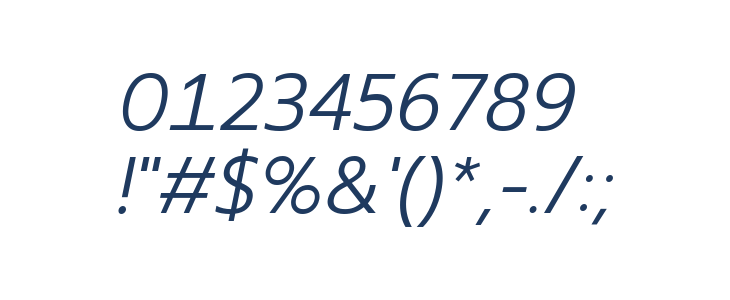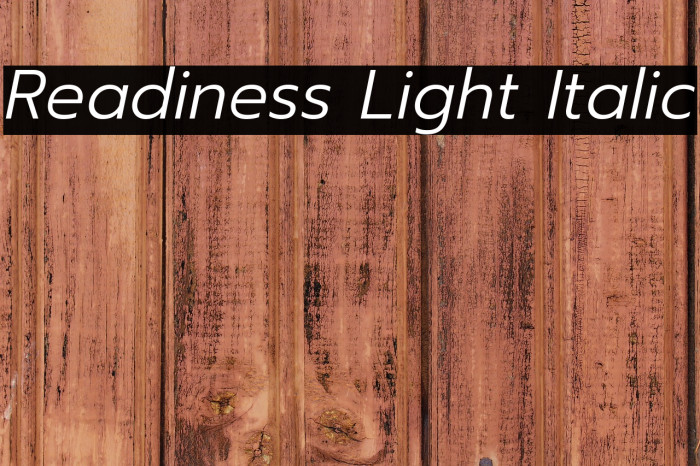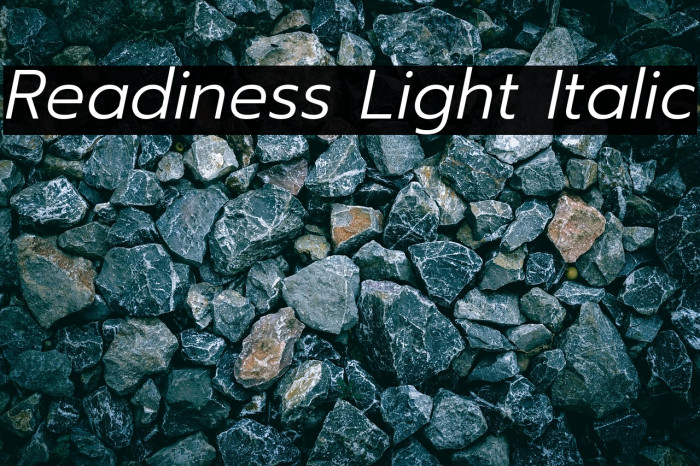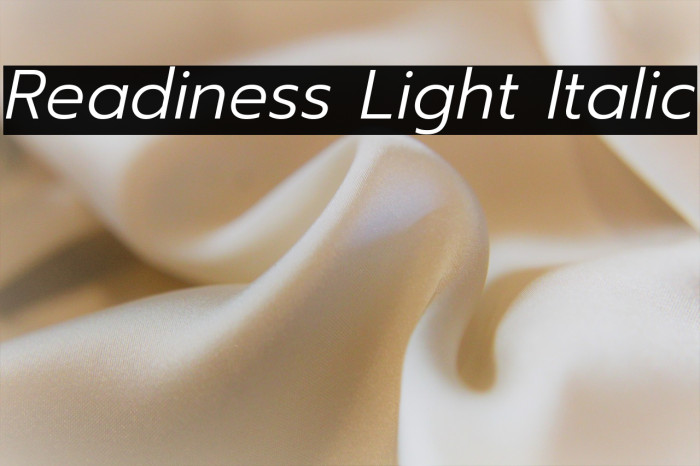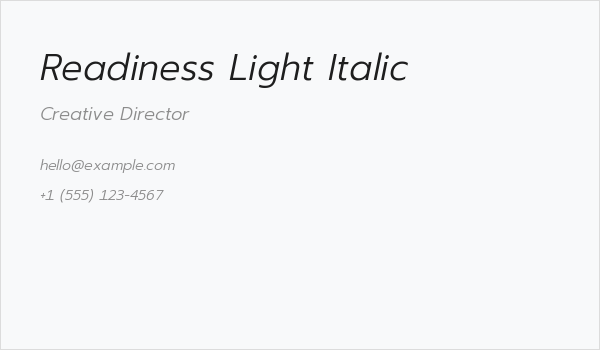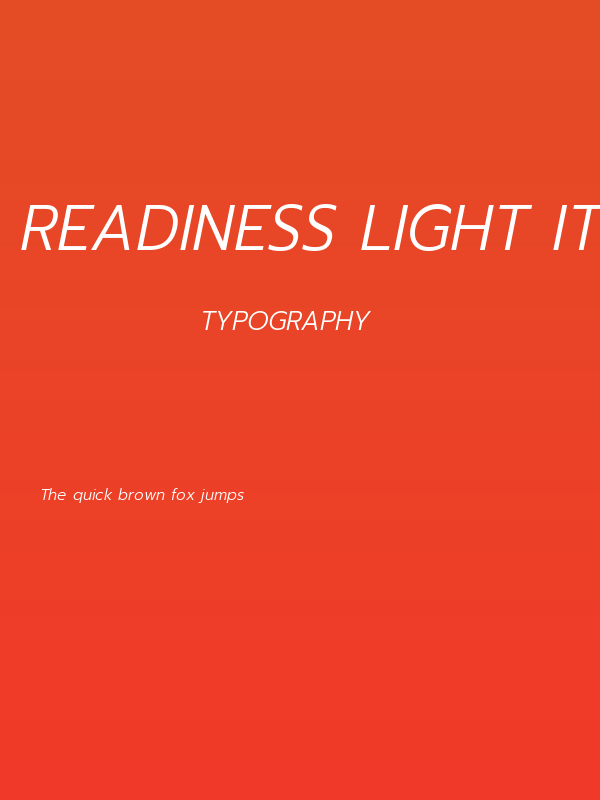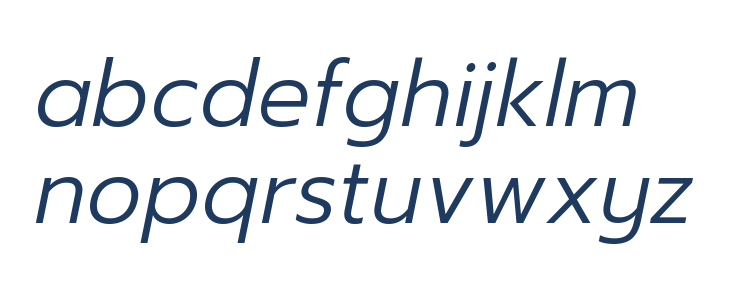
Readiness Light Italic Font
Readiness Light Italic Description
This font features a sleek and modern design with a light weight and italic style. The characters are slightly slanted, giving a sense of motion and elegance. The sans-serif design ensures clean lines and a minimalist appearance, making it versatile for various applications. The numerals and special characters maintain the same sleek aesthetic, ensuring consistency across all text elements. The overall look is contemporary and professional, suitable for both digital and print media.
| Proposed Projects | Ideal for use in modern branding, digital interfaces, editorial design, and advertising where a clean and elegant look is desired. |